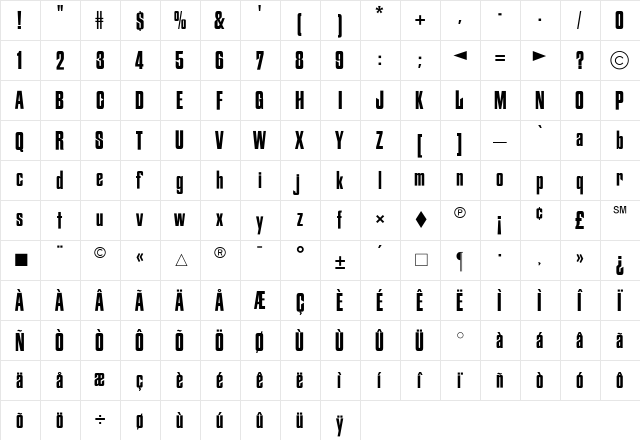
CgFiorelloCd Medium
CgFiorelloCd takes a measured approach to typography — its balanced proportions and neutral character make it a reliable workhorse for both digital and print work.
Pro Tip: Pair CgFiorelloCd with a font of contrasting weight or personality to build a more expressive typographic hierarchy.